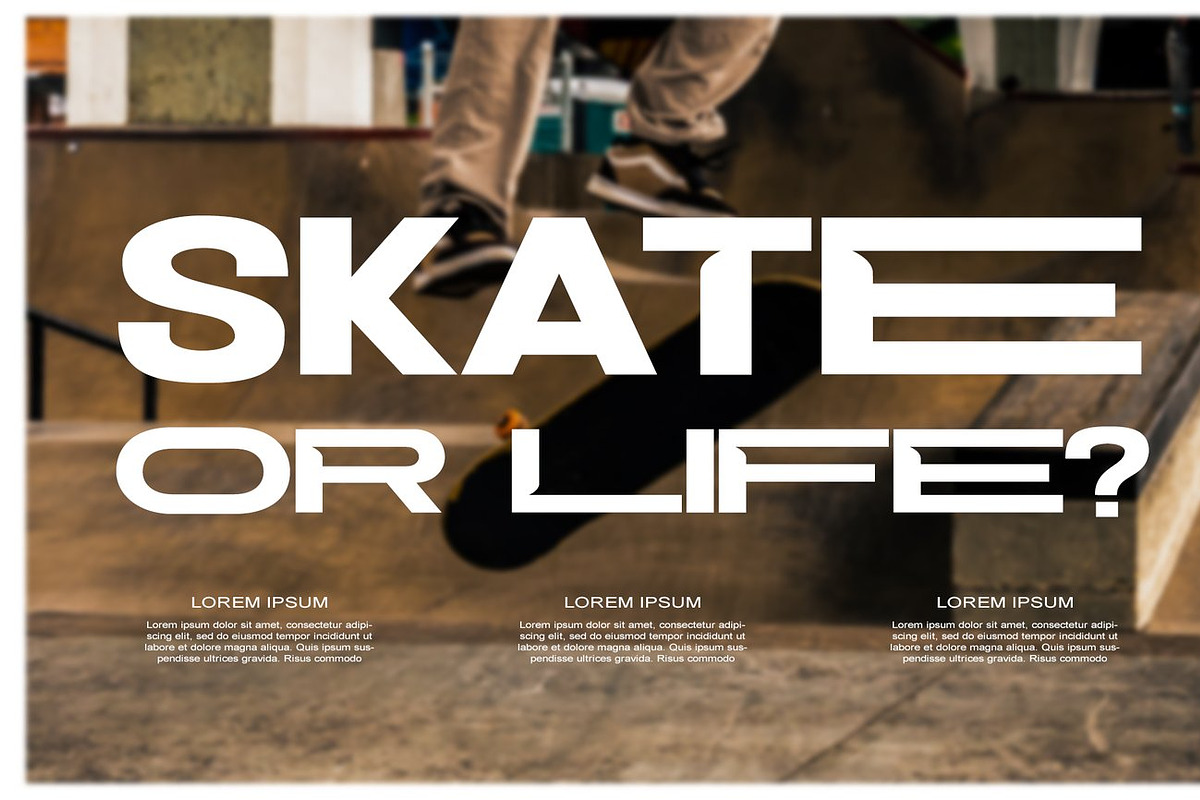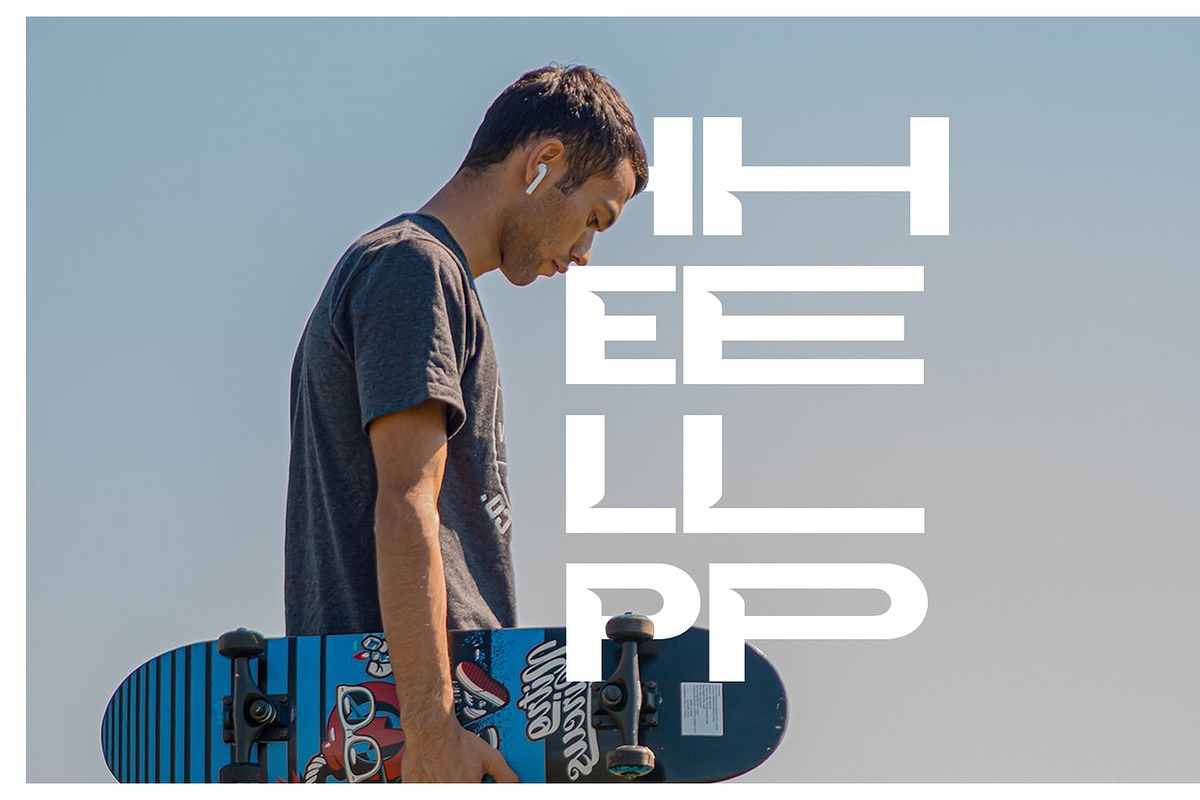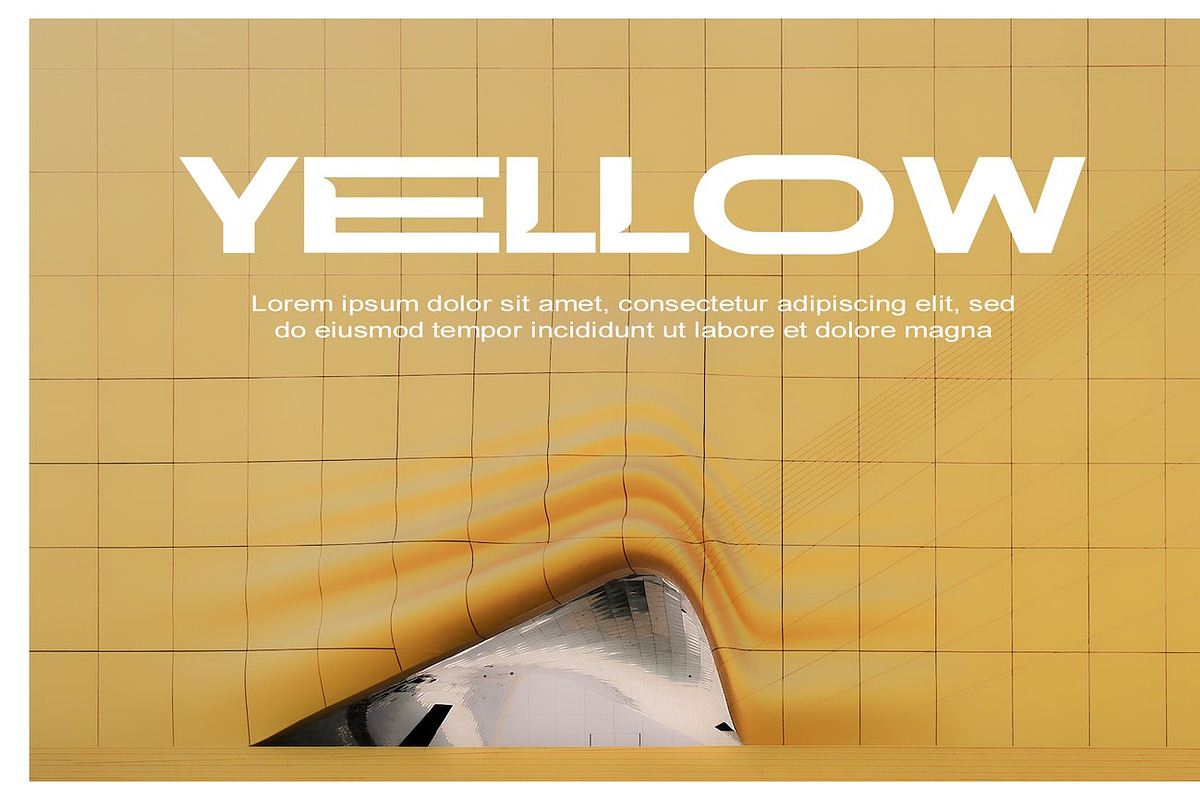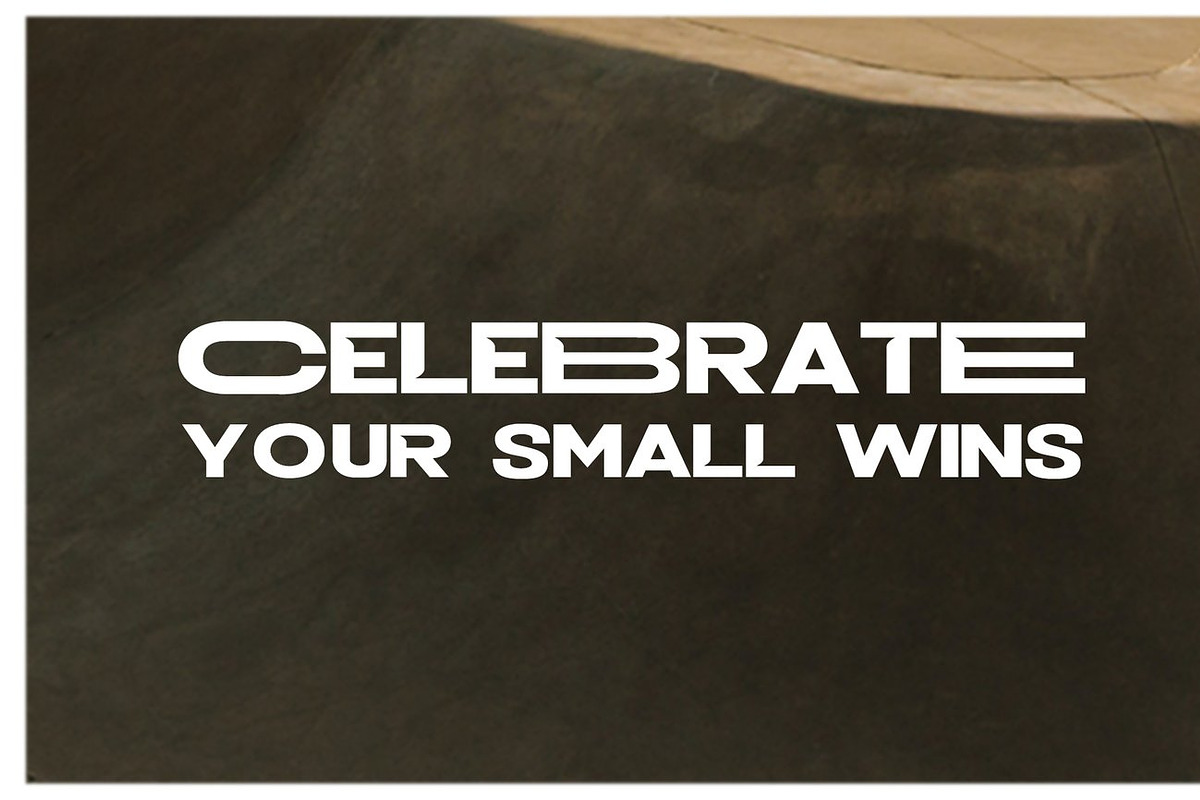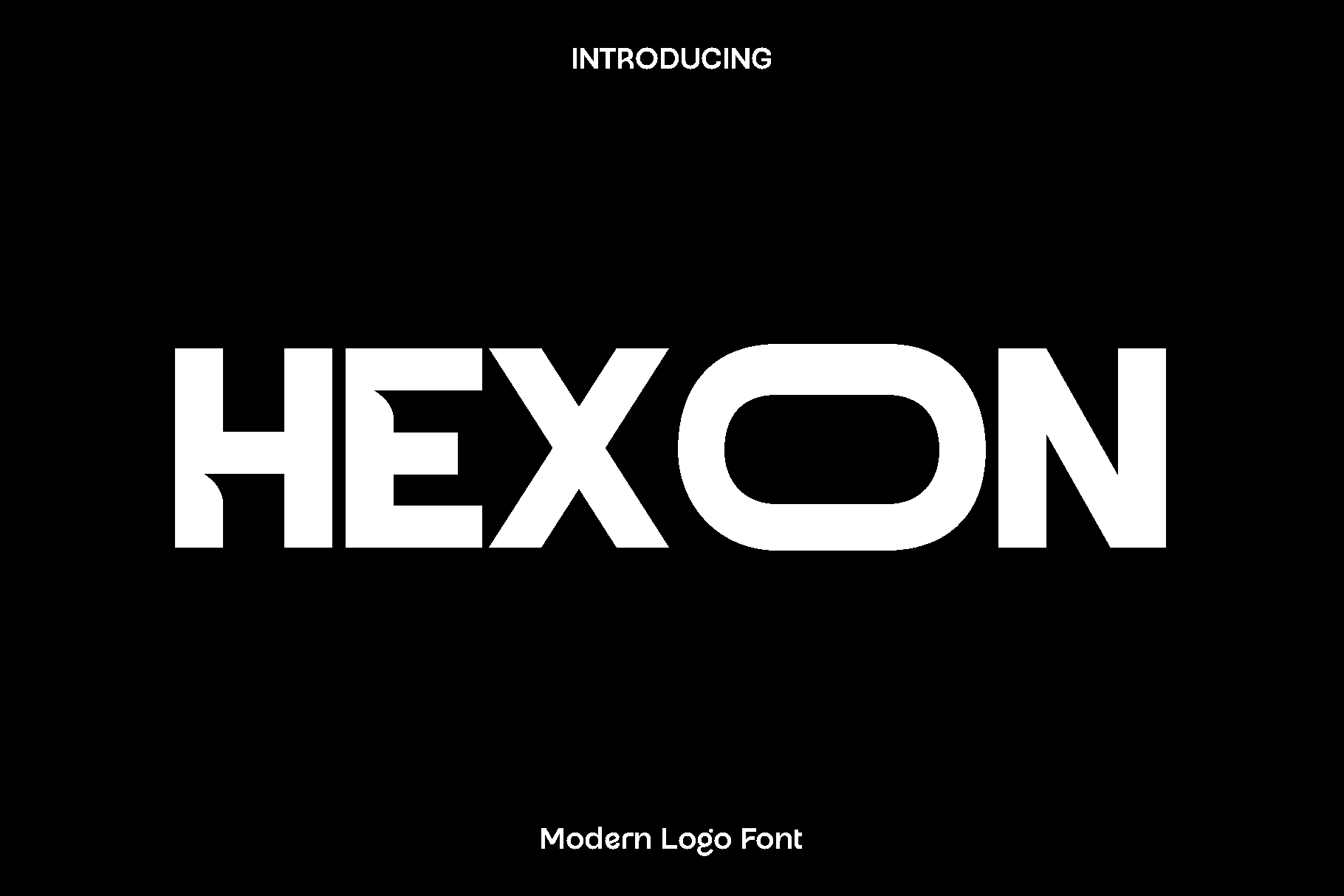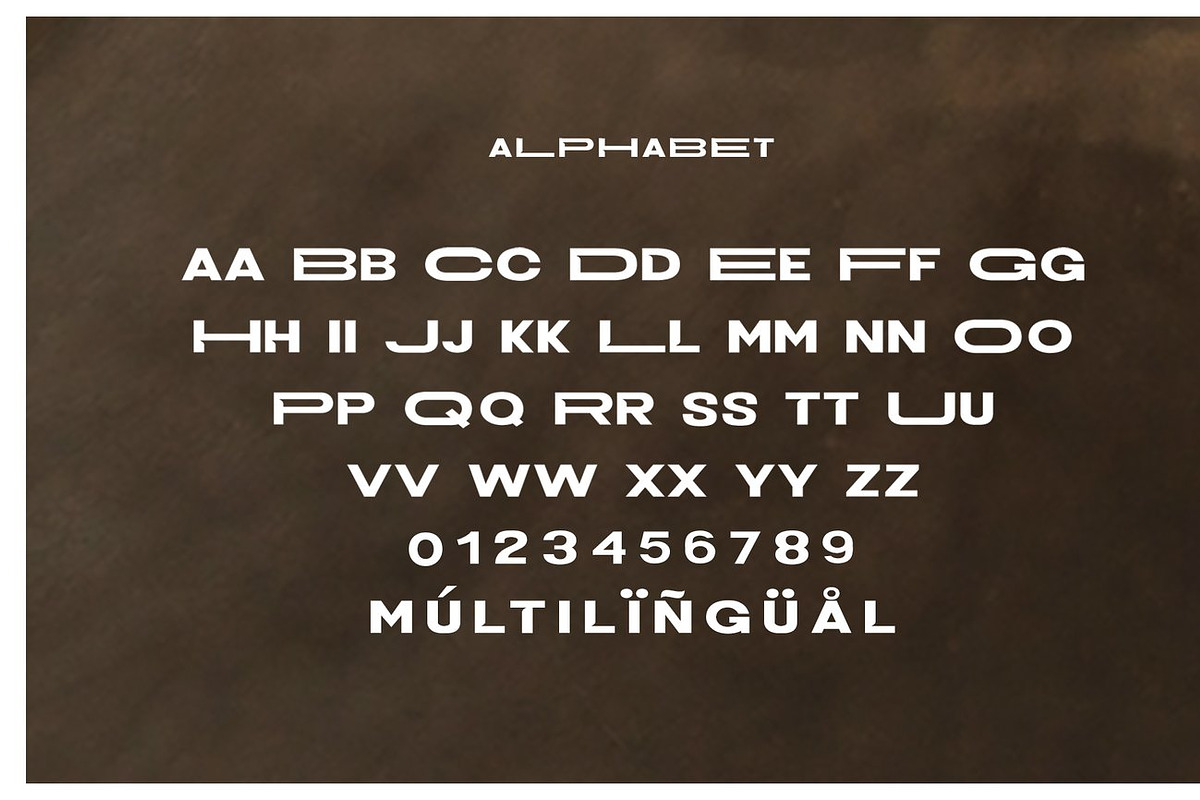
Hexon - Modern Logo Font
Hexon is a modern all caps display font created to bring confidence, clarity, and creative energy into your designs. Designed with bold structure and clean letterforms, Hexon delivers a strong visual presence while remaining easy to read and highly versatile. Its style is inspired by contemporary branding and modern craft aesthetics, making it a reliable choice for both digital and handmade projects.
Hexon feels bold, friendly, and expressive. It shines beautifully in branding projects, logo design, Procreate lettering, craft designs, home decor, invitations, stickers, and social media visuals. Whether you are designing for print or digital use, Hexon adds a polished yet creative touch that helps your work stand out with personality and impact.
This font is especially suitable for creators who want an all caps typeface that feels modern and adaptable. With solid character shapes, balanced spacing, and multilingual support, Hexon works smoothly across a wide range of applications. From small decorative elements to bold headlines, Hexon keeps your designs consistent, stylish, and memorable.
Hexon Font Features:
• All caps glyphs
• Numbers and basic punctuation
• Clean and modern display style
• Perfect for branding, Procreate, crafts, decor, and invitations
• Multilingual support
Hexon is designed to be a dependable creative tool that enhances your ideas with simplicity, strength, and modern charm. Use it to elevate your projects and bring your designs to life with confidence.